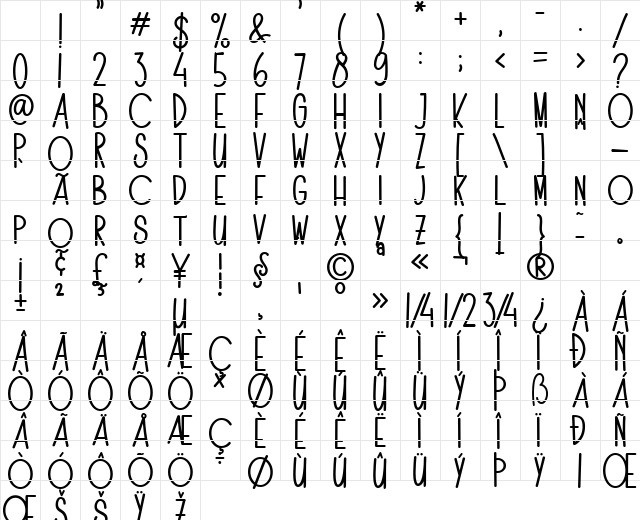
The Fox Office is a composed and adaptable typeface that performs quietly and consistently across a wide range of design contexts.
Pro Tip: Use The Fox Office in both headline and body roles to test its range before committing to a single application.